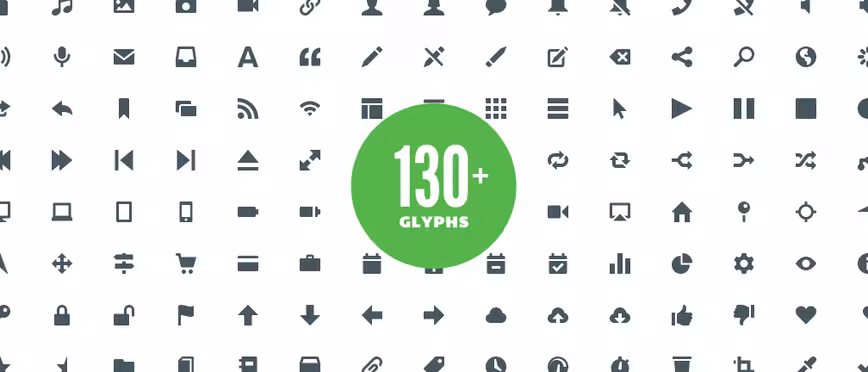
This font displays gorgeous icons when you type in keywords like “twitter” and “alert”
Symbolset, created by the incredible team at Oak, is a soon-to-be-released semantic symbol font that is activated by keywords and works in all modern browsers. Using this font, typing in the word “twitter” (caps sensitive) actually yields the Twitter logo and typing in “cart” yields a cart, creating a quick and easy way to call on icons without having to hassle with embedded images.
Perhaps most importantly, Symbolset automatically degrades back to text for older browsers and provides true accessibility, making it a rather worry-free solution for Web use. According to Oak, the font was designed to perform well at all sizes and is monospaced to avoid issues with horizontal alignments.
As you’ll see on the launch site, you can preview a few of the icons in the header text, but the whole set with documentation will be revealed post-launch. For now, you’ll just have to admire the images below and know that the folks at Oak have a reputation for gorgeous work, including sites like Dropmark, Quarterly Co. and Tattly.